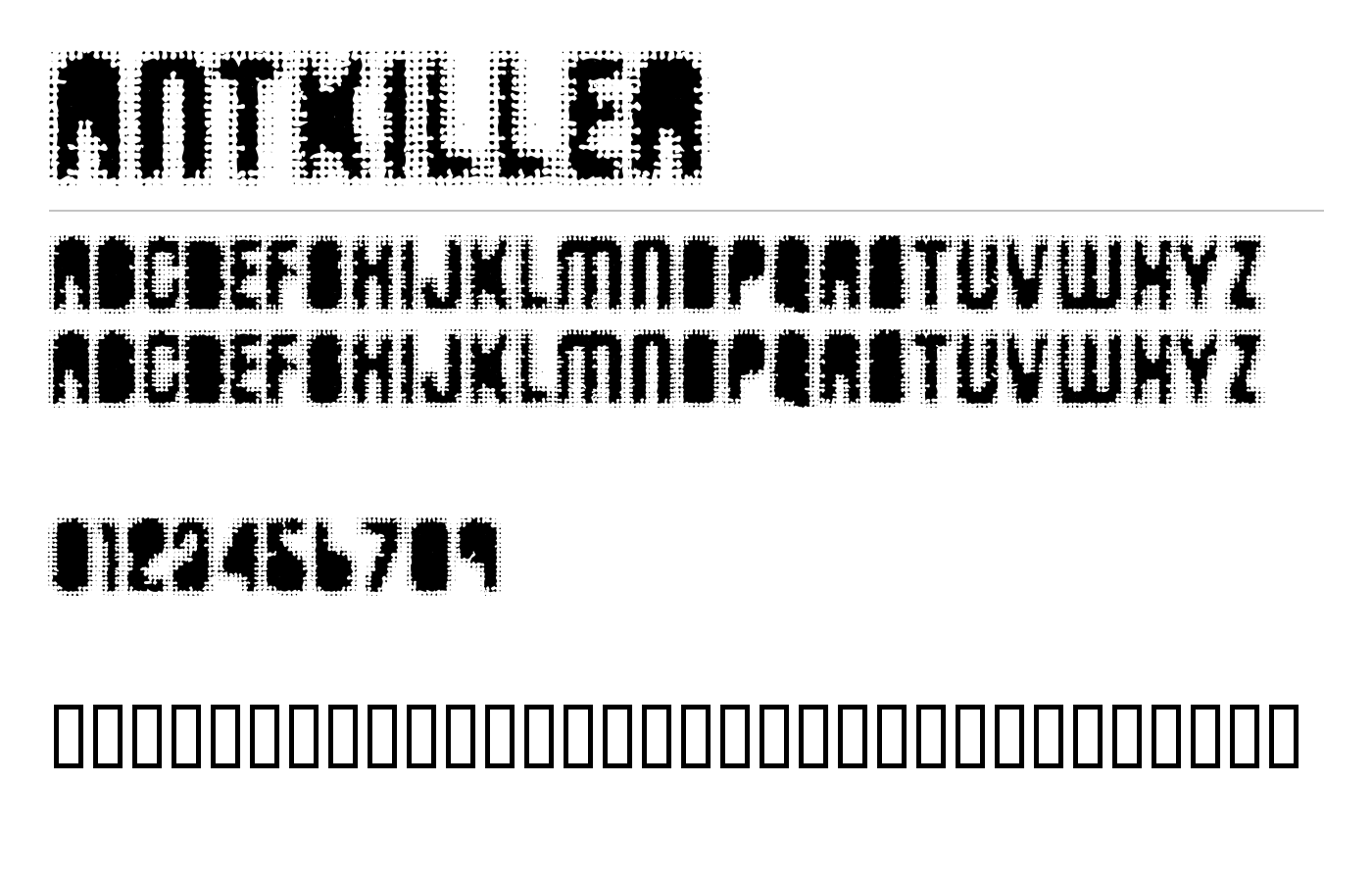
AntKiller is a bold, condensed sans serif font featuring a distinct pixelated edge effect that gives it a digital, almost glitch-like appearance. Its blocky, rigid letterforms with consistent stroke weight create a strong, modern vibe ideal for standout headlines, posters, or tech-themed branding. This font works well where a futuristic and edgy style is needed to grab attention and convey a sense of digital disruption or intensity.
AntKiller Font
About AntKiller Font